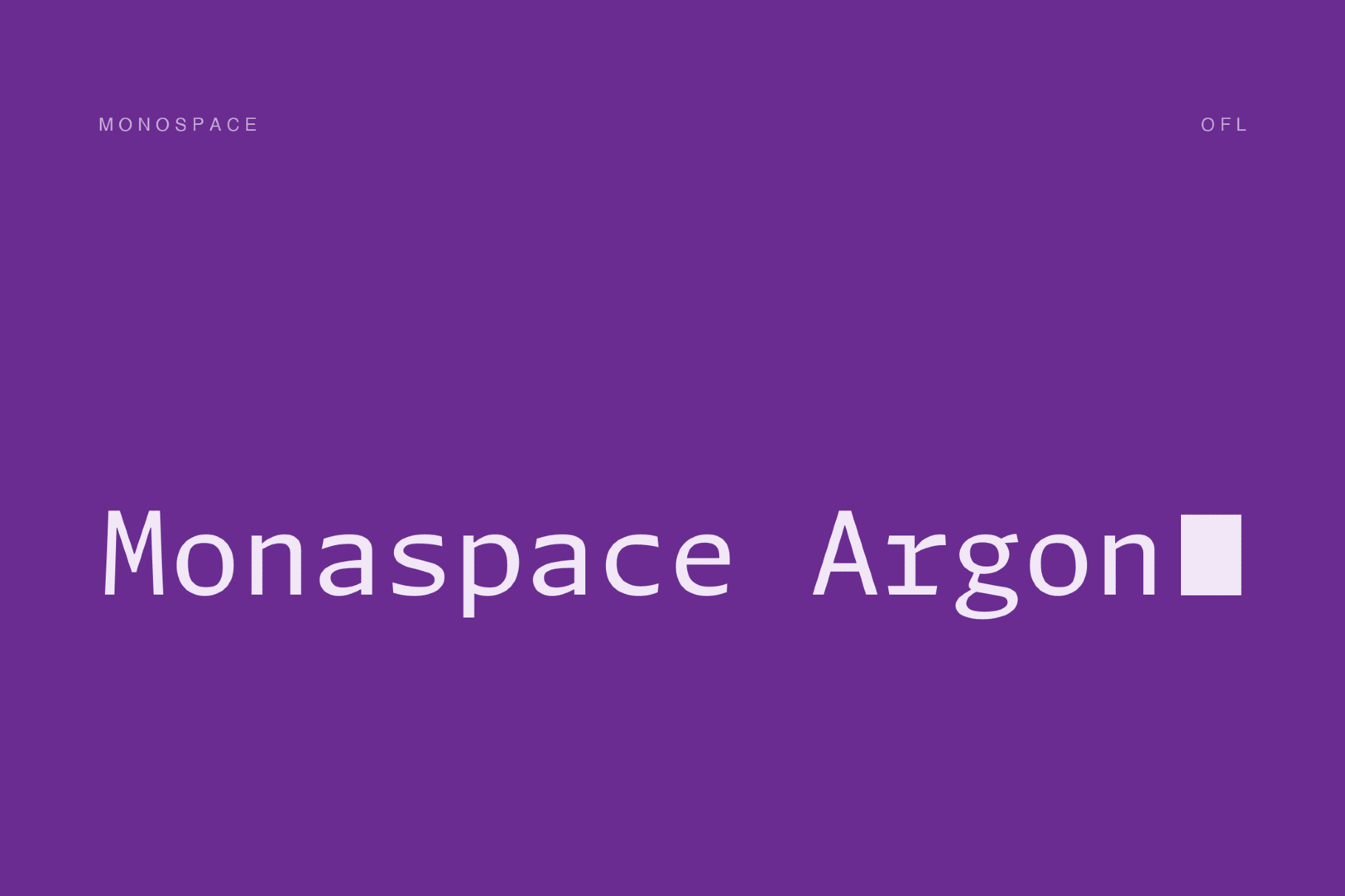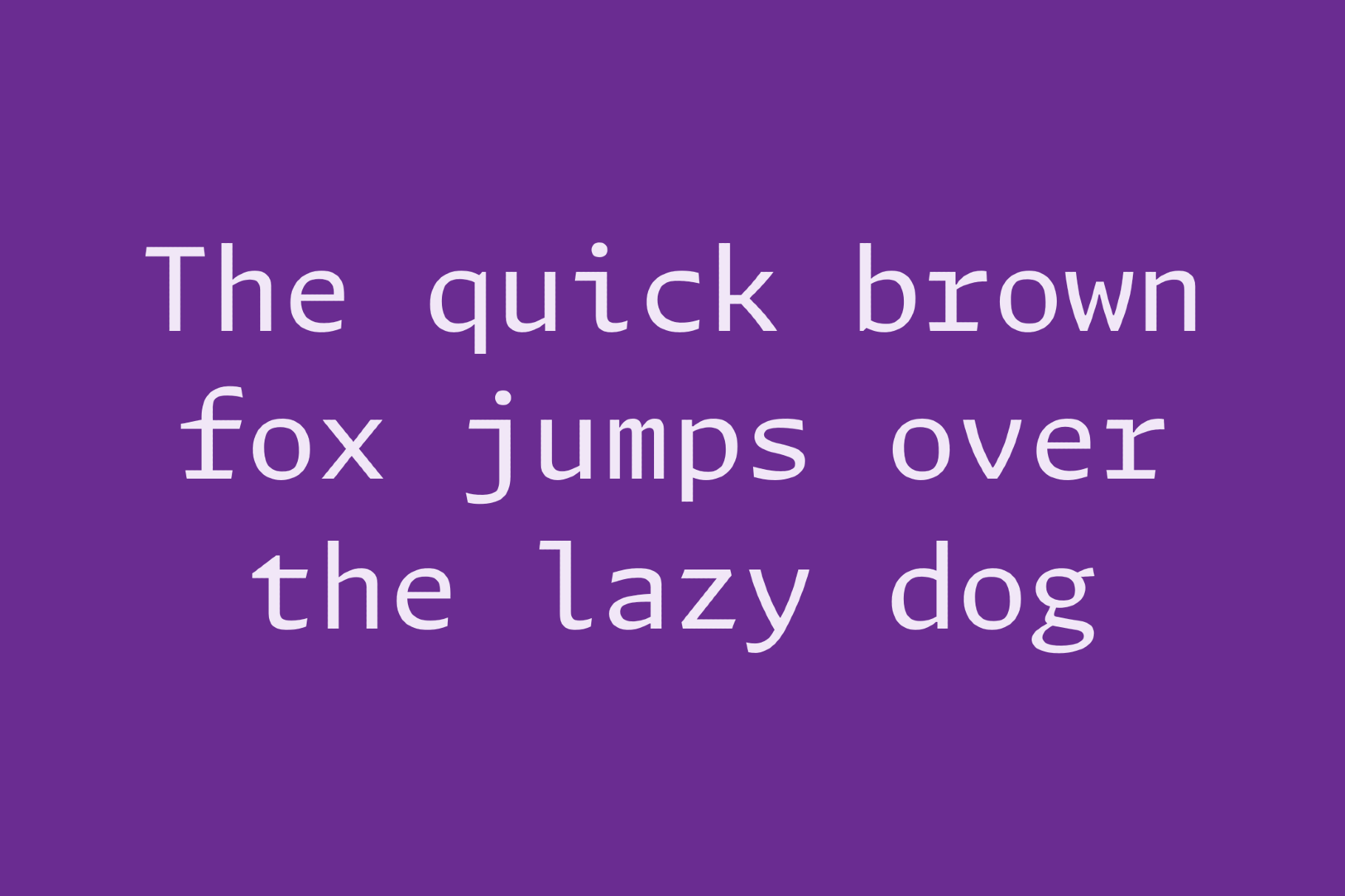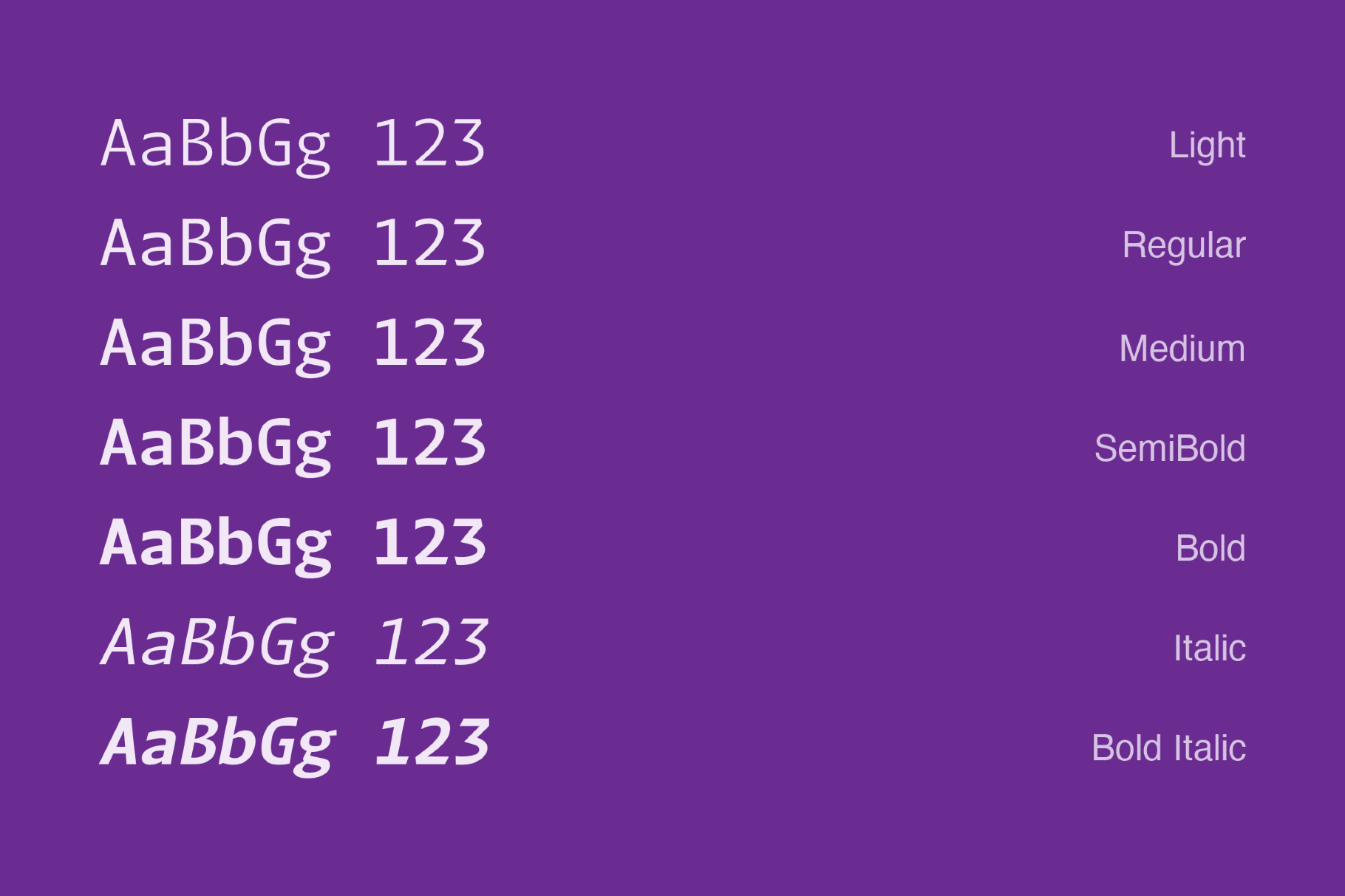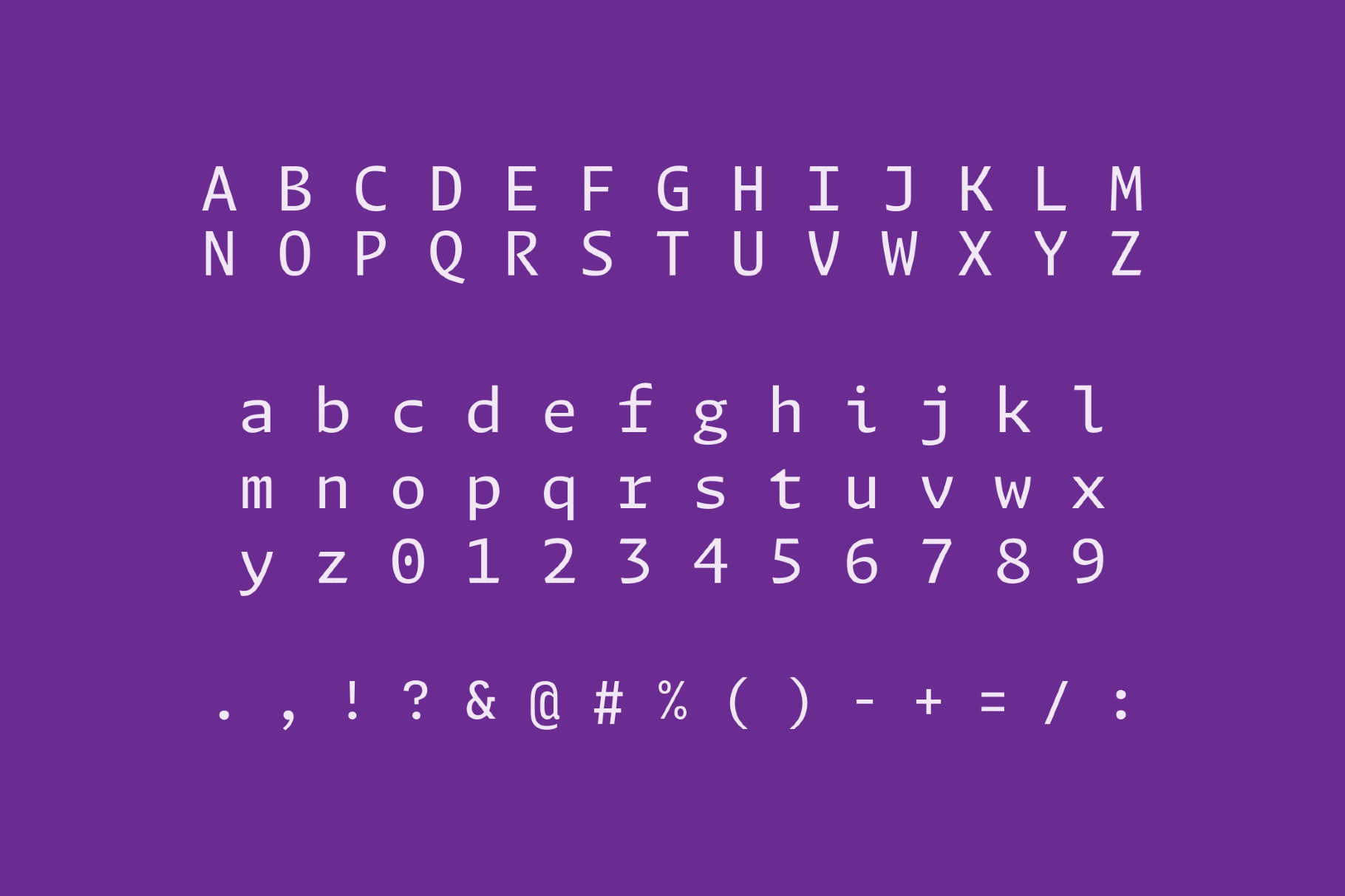
Monaspace Argon leans on the grotesque-inspired, slightly humanist voice, built around a technique called texture healing that automatically smooths the visual rhythm of tight character pairs.
Thanks to its variable weight and width axes, the family suits developer tool branding, code editor marketing, GitHub-adjacent interfaces, programming conference graphics, tech startup identity, coding bootcamp materials, terminal theme design, software documentation, and IDE splash screens.
• variable weight and width axes, with matching italics;
• uppercase and lowercase letters, numbers, punctuation, and symbols;
• texture healing and coding ligatures across multiple stylistic sets;
• an optional Nerd Fonts icon set.